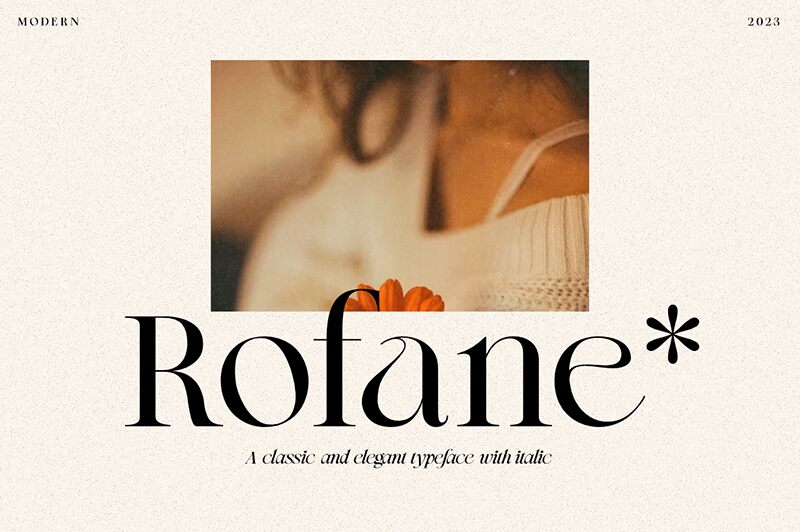
Rofane font by ReyreyBlue offers an elegant, sophisticated look defined by modern serif characters which perfectly convey understated luxury with unwavering precision. Its timeless appeal is achieved through the classic frame with thin contrasting strokes and visible curvatures. The result is really interesting and engaging making this free serif font a valuable addition to any designer’s collection.
Consider Rofane for wedding cards, romanic letters, jewelry branding, cosmetic packaging design, logos, advertising campaigns for unique businesses etc. This font can even look good in greeting cards or social media images like Pinterest pins for example. Use it anytime you need sophistication-delivering typography.